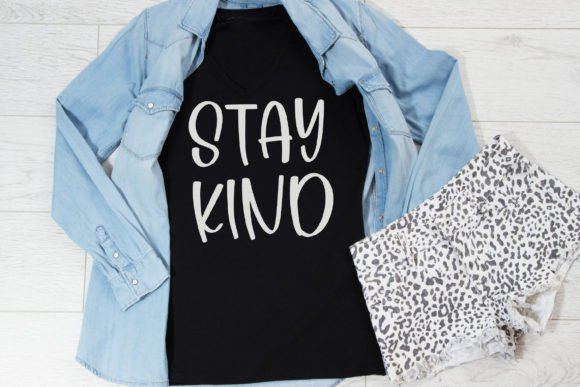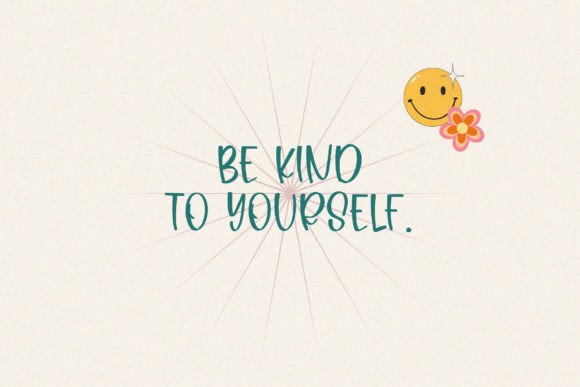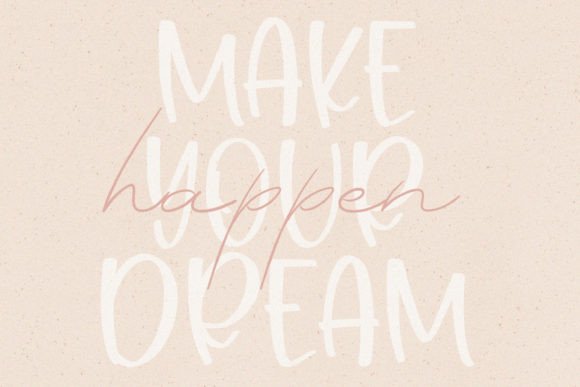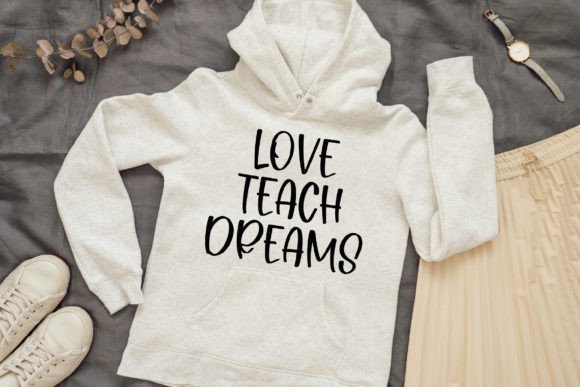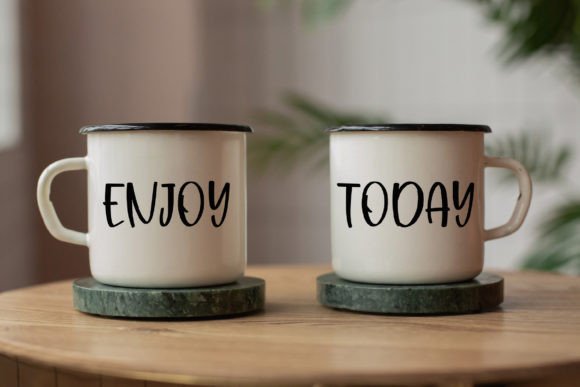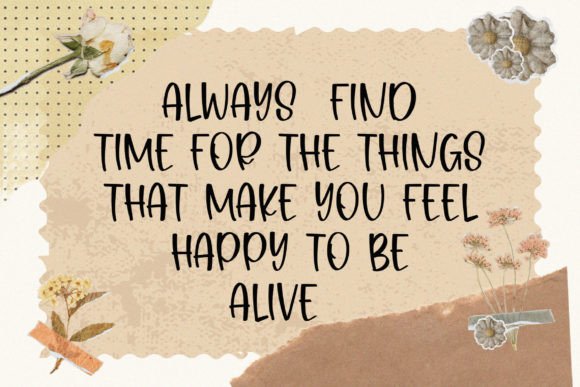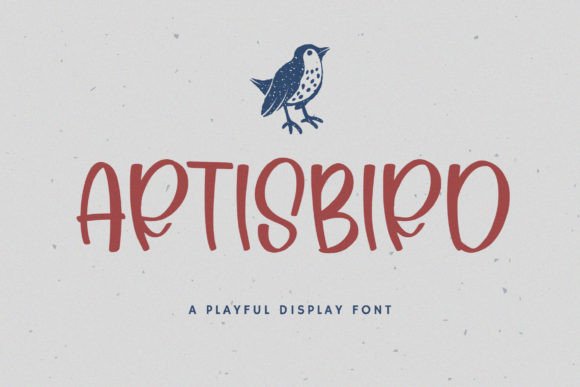
Introducing Artisbird Font: The Perfect Handwritten Font for Chalkboard Quotes and Teaching Materials
Are you a designer, teacher, or crafter looking for a font that can add a personal touch to your chalkboard quotes, teaching materials, and craft projects? Look no further than Artisbird Font! This adorable and simple lettered handwritten font is designed to give your designs an authentic, realistic feel that’s sure to captivate your audience.
What Makes Artisbird Font So Special?
Artisbird Font is a unique and charming font that’s specifically designed for use on chalkboard quotes, teaching materials, and craft projects. Its hand-drawn, lettered style gives it a warm, friendly feel that’s perfect for creating engaging and personalized designs. Whether you’re a teacher looking to create eye-catching lesson plans, a designer creating social media graphics, or a crafter making DIY projects, Artisbird Font is the perfect choice.
Key Features of Artisbird Font
• Cute and Simple Design: Artisbird Font features a simple, yet adorable design that’s perfect for creating chalkboard quotes, teaching materials, and craft projects.
• Handwritten Style: This font’s handwritten style gives it a personal, realistic feel that’s sure to add a touch of warmth to your designs.
• Authentic Look: Artisbird Font’s authentic look makes it perfect for creating designs that look like they were written on a chalkboard.
• Easy to Read: Despite its handwritten style, Artisbird Font is easy to read, making it perfect for use on teaching materials and other designs where legibility is important.
Uses for Artisbird Font
Artisbird Font is a versatile font that can be used for a wide range of design projects, including:
• Chalkboard Quotes: Create eye-catching chalkboard quotes for social media, blogs, or websites.
• Teaching Materials: Use Artisbird Font to create engaging and personalized lesson plans, worksheets, and other teaching materials.
• Craft Projects: Add a personal touch to your craft projects, such as DIY signs, cards, and gift tags.
• Social Media Graphics: Use Artisbird Font to create eye-catching social media graphics, such as quotes, posters, and flyers.
Why Choose Artisbird Font?
There are many fonts available that can be used for chalkboard quotes and teaching materials, but Artisbird Font stands out from the rest. Here are just a few reasons why:
• Unique Design: Artisbird Font features a unique and charming design that’s sure to set your designs apart.
• High-Quality: Artisbird Font is a high-quality font that’s designed to produce crisp, clear results.
If you’re looking for a font that can add a personal touch to your chalkboard quotes, teaching materials, and craft projects, look no further than Artisbird Font. With its cute and simple design, handwritten style, and authentic look, this font is sure to become a favorite among designers and crafters. So why wait? Download Artisbird Font today and start creating engaging and personalized designs that will captivate your audience!
Tips and Tricks for Using Artisbird Font
Here are a few tips and tricks for getting the most out of Artisbird Font:
• Experiment with Colors: Artisbird Font looks great in a variety of colors, so don’t be afraid to experiment and find the perfect color for your design.
• Use it with Other Fonts: Artisbird Font pairs well with other fonts, so try using it with a bold font for headings and a script font for body text.
• Add Texture: Add texture to your design by using a texture overlay or a background image.
By following these tips and tricks, you can create stunning designs that showcase the unique charm of Artisbird Font.